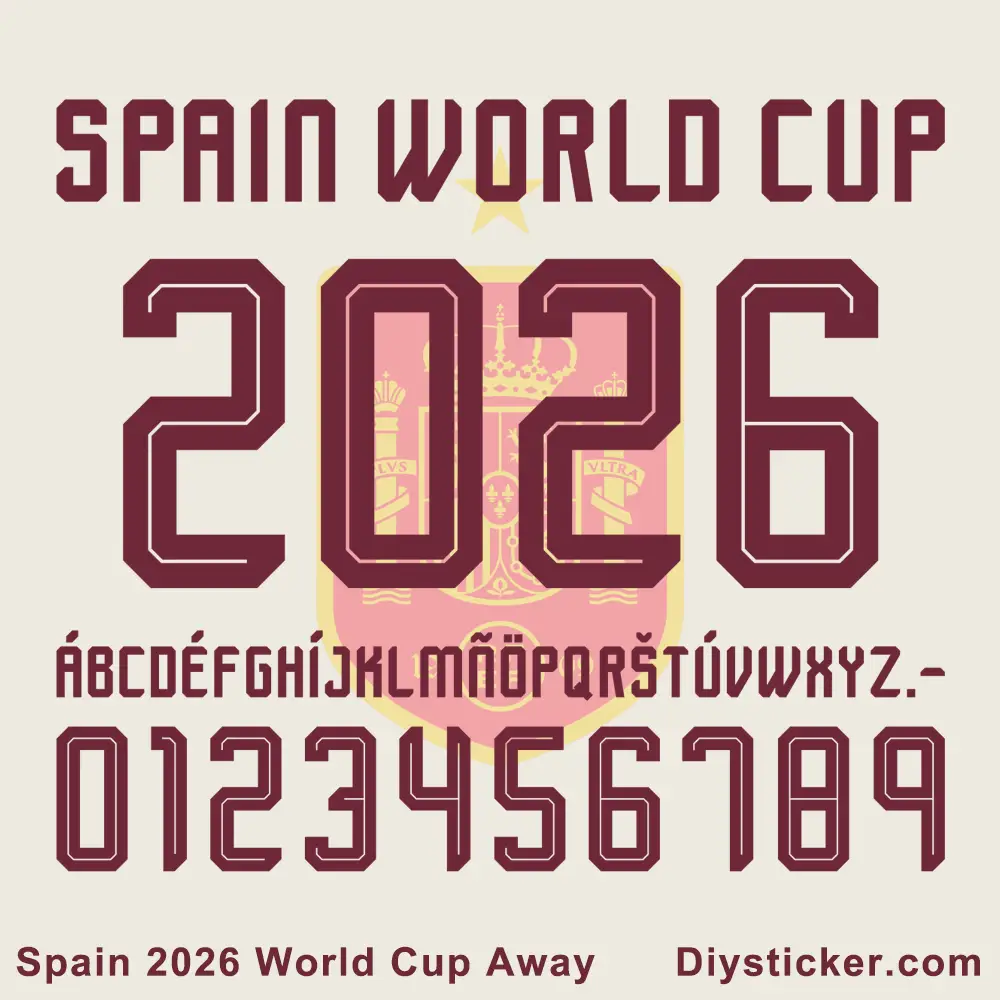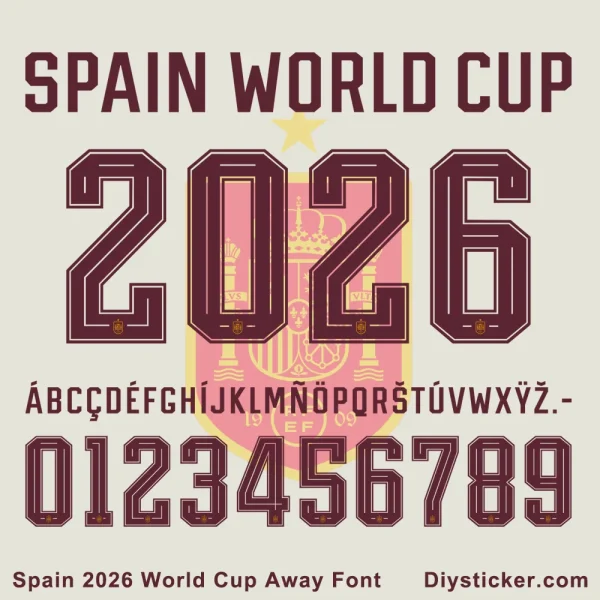
Show your support for La Furia Roja with the official Spain 2026 World Cup Away Font. This is the authentic typeface used on the Spanish national team’s official away jerseys for the 2026 FIFA World Cup. Designed for fans and creators, this font pack lets you bring the official team branding into your own projects.